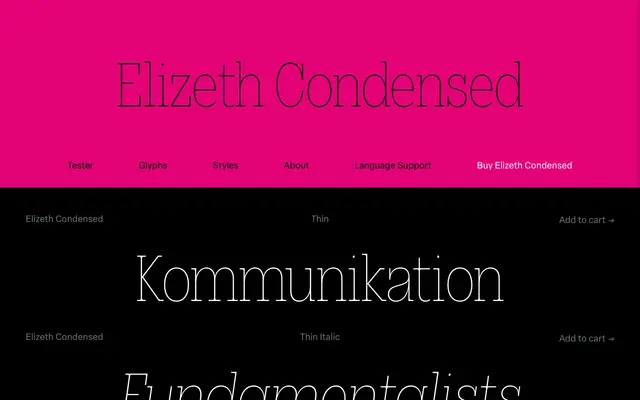
Elizeth Condensed
A condensed geometric slab with bracketed serifs, drawn in seven weights with true italics and broad Latin language support.
The condensed width companion to Elizeth, sharing its geometric slab construction that references early twentieth-century rationalism and typefaces such as Rockwell. Bracketed serifs soften the geometric rigour, and true italics across all seven weights give the family genuine typographic range. OpenType features include small capitals, old-style figures and tabular figures, with language coverage extending across a large number of Latin-script languages.
Described explicitly as a geometric slab evoking early twentieth-century rationalism, referencing Rockwell, but distinguished by its bracketed serifs and true italics.